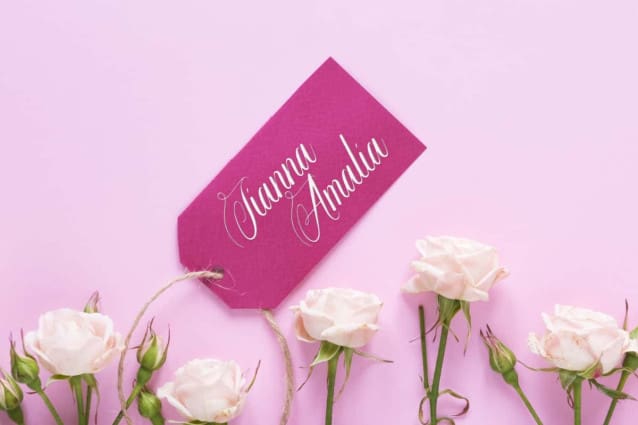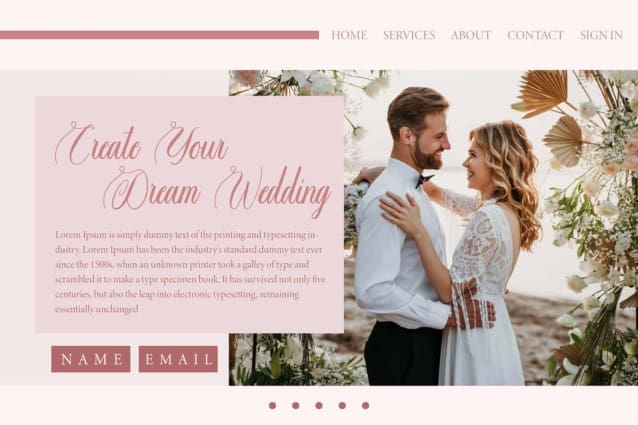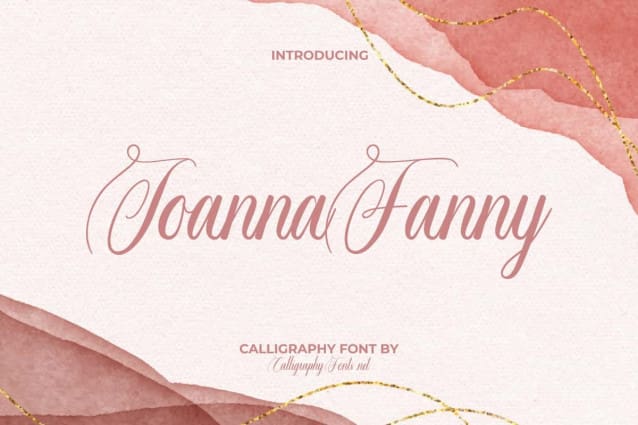
Joanna Fanny Font
Joanna Fanny Font is a sophisticated calligraphy font defined by its graceful and refined letterforms in a clean script. Ligature alternates add artistic value to the font allowing users to elevate their designs to a higher level of aesthetic beauty and elegance. Carefully designed to work harmoniously, making it perfect for branding logos, covers, greeting cards, invitation, labels, logos, product packaging, stationery, titles, websites, even for any design work that requires a luxurious feel.
Joanna Fanny Font is a modern calligraphy font of classic style made elegant, inspired by the beautiful cursive writing of the quill pen of its time. Let your creativity flow using this font with great ease. This font is perfect for author, event organizer, fashion, florist, graphic design, printing, publishing, skincare, spa salon, wedding media, writers, and much more.